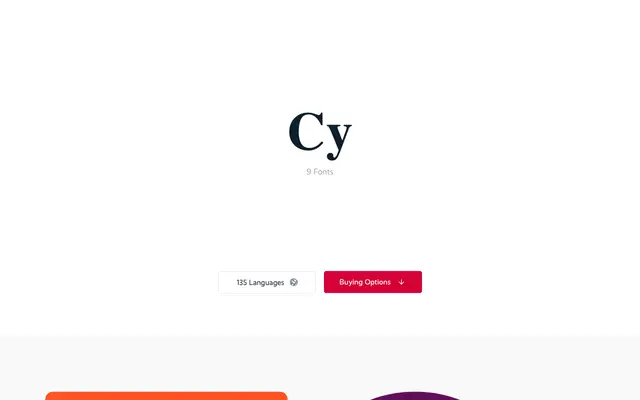
Cy
A headline typeface by Jürgen Huber built around deliberately inconsistent geometry, mixing circular and square letterforms across nine weights.
Designed by Jürgen Huber, Cy resists conventional geometric construction by combining circular and square forms without a fixed rule, producing a distinctive unpredictability at display sizes. Each of the nine weights contains 801 glyphs with OpenType feature support, giving designers control over the mix of forms to suit a given layout. Related families include Cy Text, Cy Glitch and Cy Curly, all sharing the same underlying character.
Cy is a display typeface with deliberately unpredictable geometry, mixing circular and square forms across weights, placing it firmly in the display category with a geometric but rule-breaking sensibility.